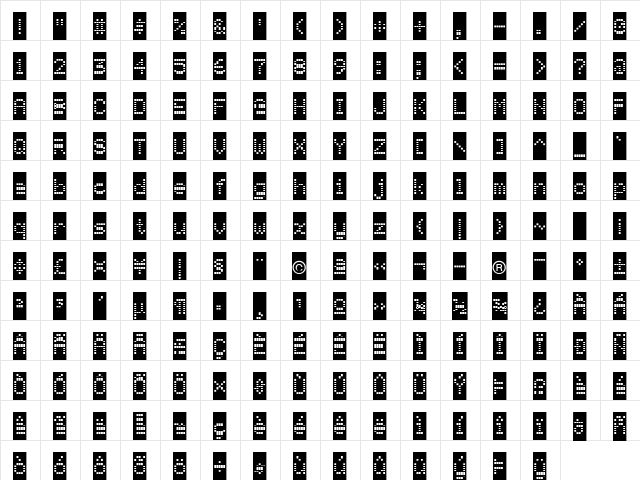
Bubbledot ICG Fine Neg Regular
Design Context for Bubbledot ICG Fine Neg Typeface
Bubbledot ICG Fine Neg is rooted in pixel-grid construction, making it a natural fit for game UI, retro computing aesthetics, and digital nostalgia projects.
Well-suited to indie game interfaces, retro computing aesthetics, and pixel art-adjacent design work.
Pro Tip: Use Bubbledot ICG Fine Neg at sizes that align with its pixel grid for the sharpest rendering — scaling to non-integer multiples can introduce unwanted blur.